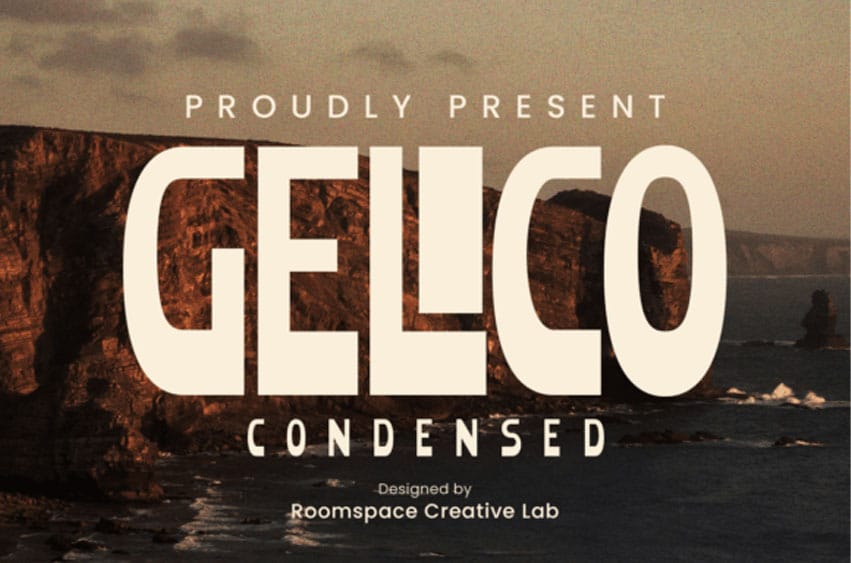
Gelico Condensed Font
Gelico Condensed Font is a bold condensed display font designed to deliver a strong impact and modern appeal. With its sleek, condensed form, Gelico combines boldness and simplicity, creating a typeface that instantly grabs attention while maintaining clarity and style. Perfect for contemporary design projects, this font brings a professional yet creative vibe to your typography.
Every letter in Gelico is crafted with sharp edges and balanced proportions, giving it a powerful presence in any layout. The condensed width makes it highly space-efficient without sacrificing readability, making it an excellent choice for large headlines, branding, or editorial layouts where precision and impact matter.
Whether you’re designing logos, posters, magazine covers, social media graphics, or product packaging, Gelico ensures your work stands out with bold energy and modern aesthetics. Elevate your visual identity with this versatile condensed font and give your designs the strong, contemporary edge they deserve. Try Gelico today and make every headline unforgettable.